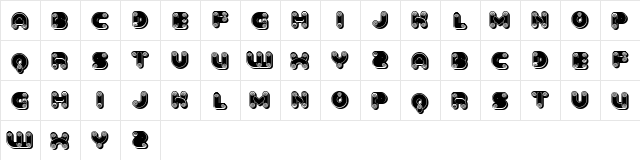
Baked Snails 3D Regular Free Font
Baked Snails 3D Regular
Design Context for Baked Snails 3D
Baked Snails 3D is a composed and adaptable typeface that performs quietly and consistently across a wide range of design contexts.
Pro Tip: Use Baked Snails 3D in both headline and body roles to test its range before committing to a single application.